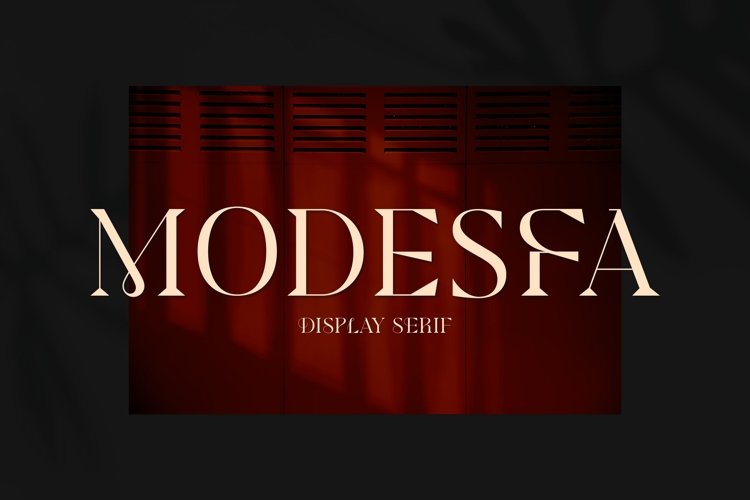
Introducing Modesfa - Modern Display Serif inspired by the famous minimalist logo perfect for the purposes of designing templates, brochures, videos, advertising branding, logos and more.